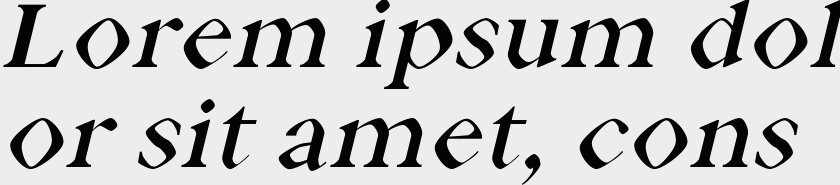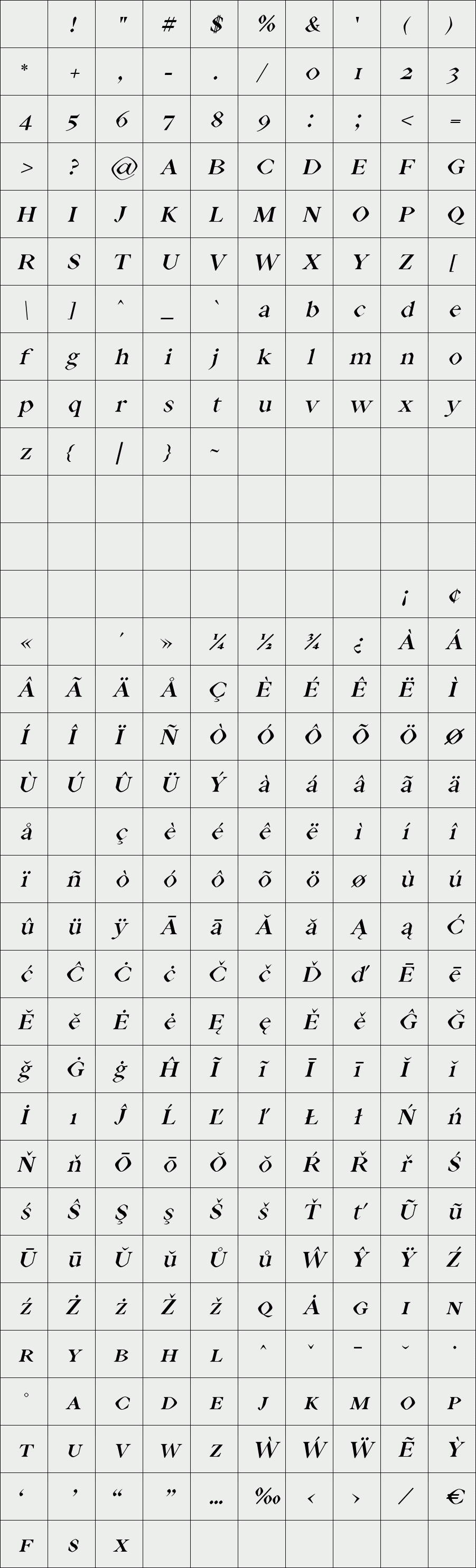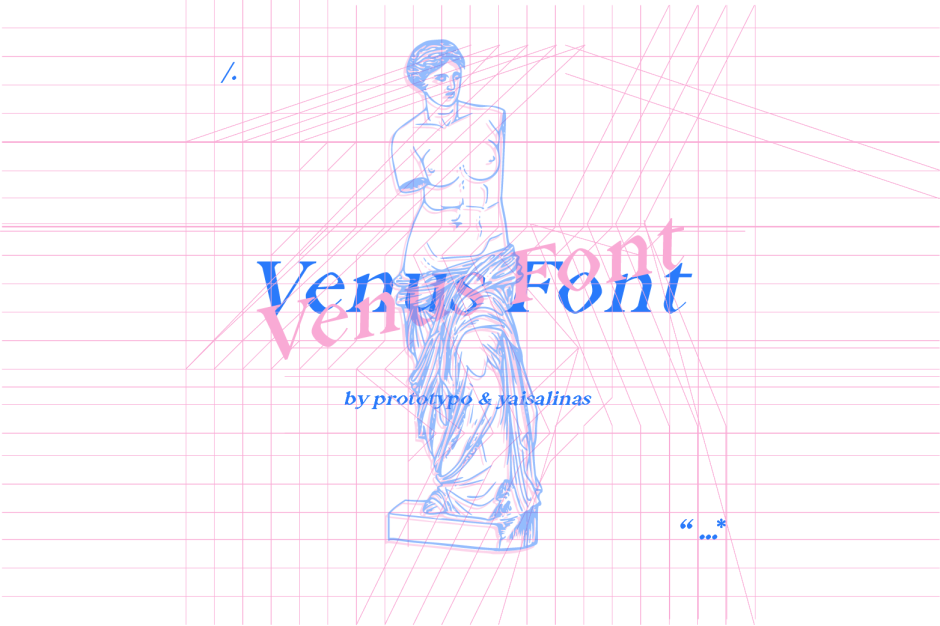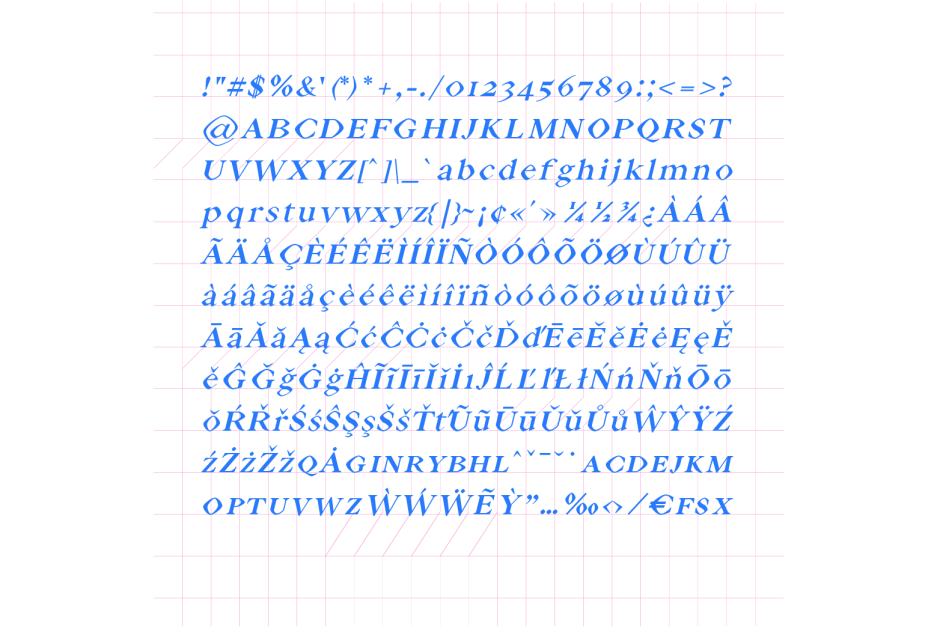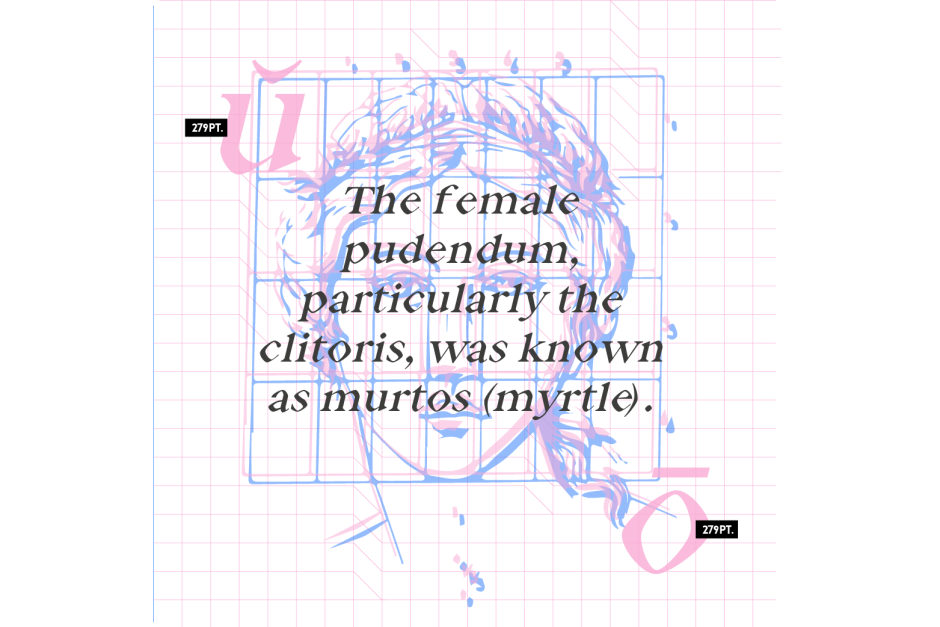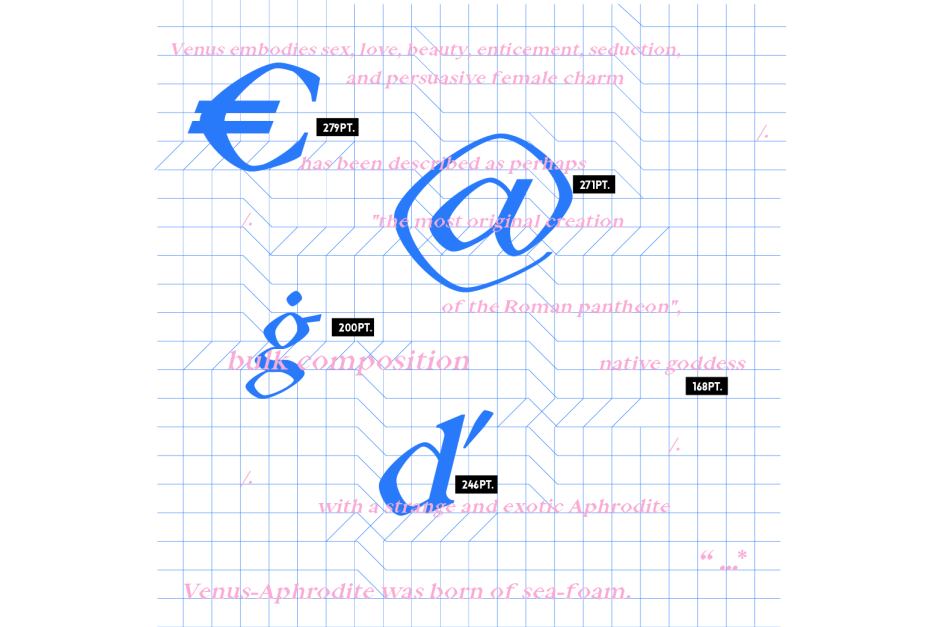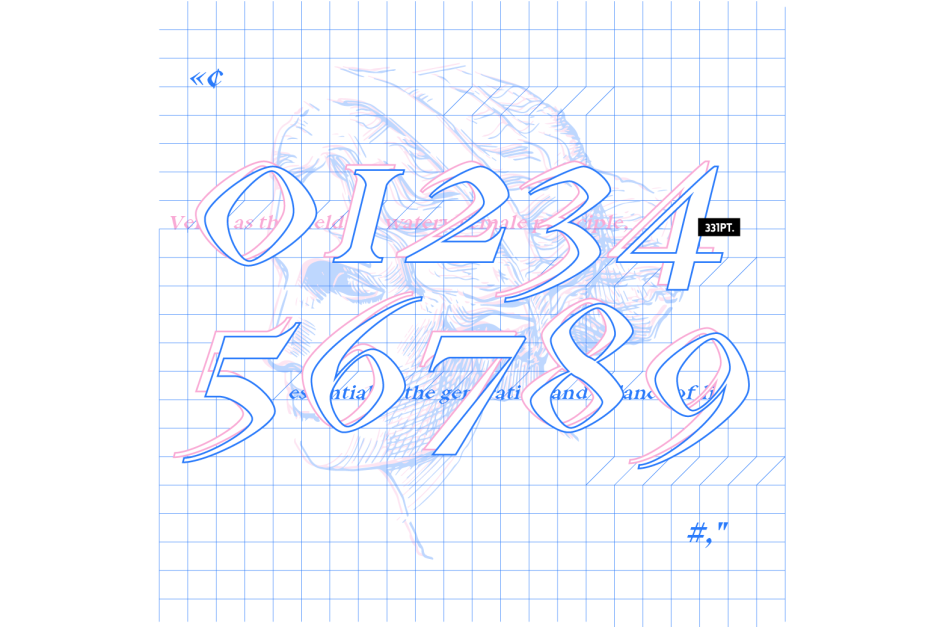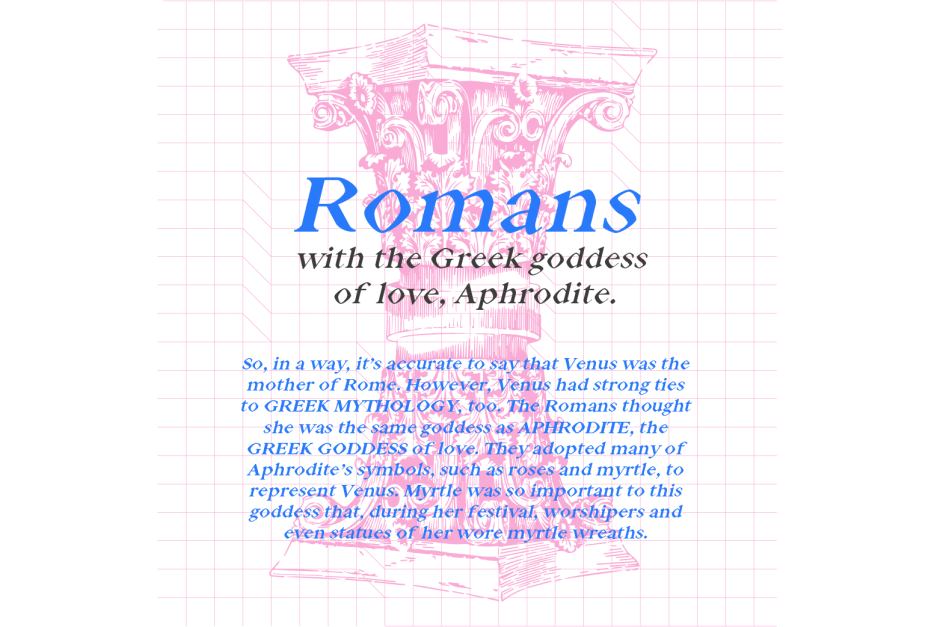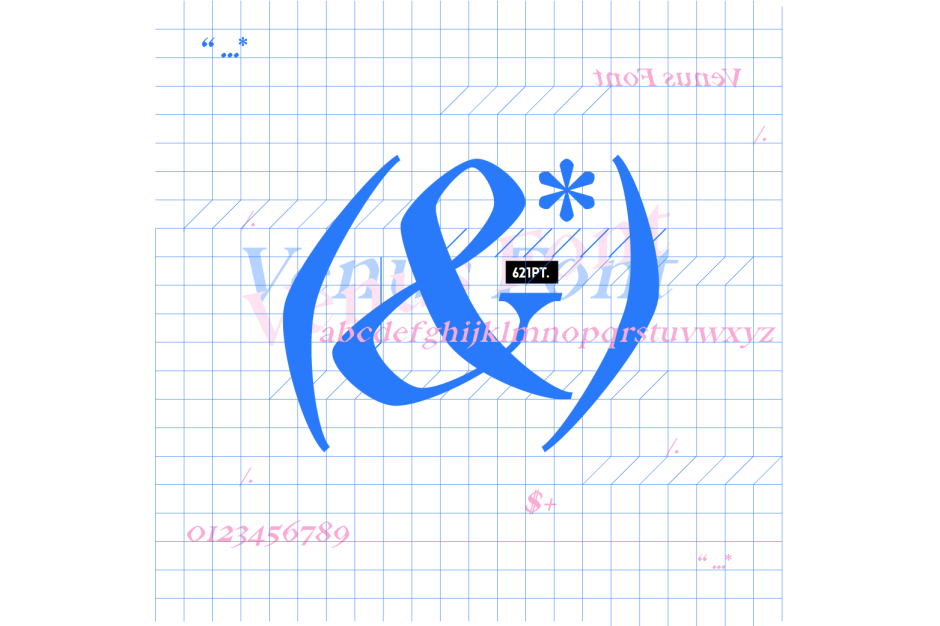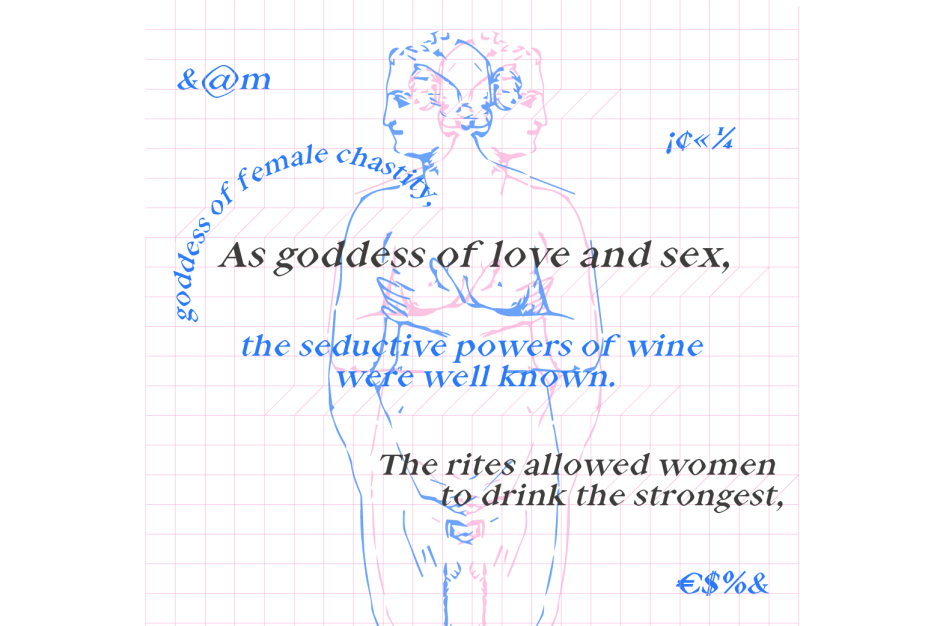
Venus Font
Venus font is a typeface with character, due to its irregular strokes and its endings it refers to antiquity, ideal to give personality to your designs.
Designer: Yai Salinas